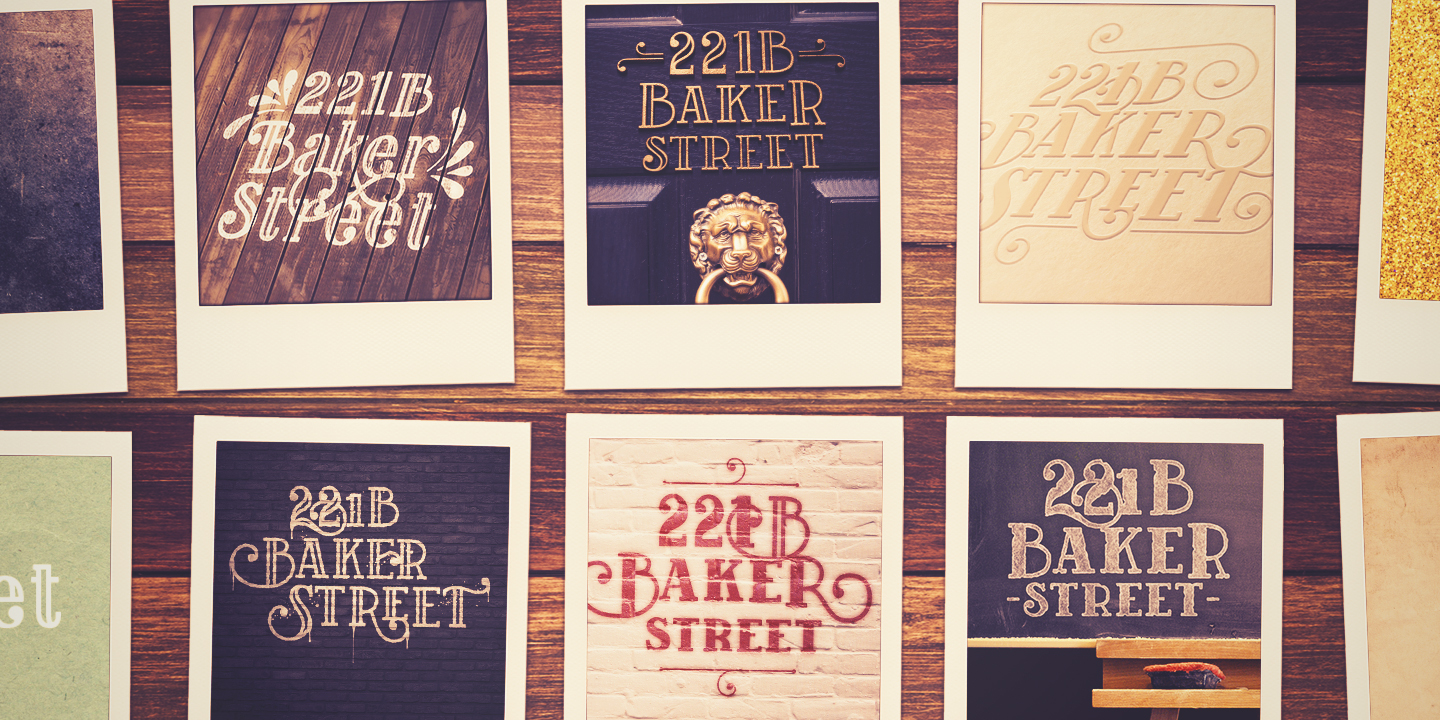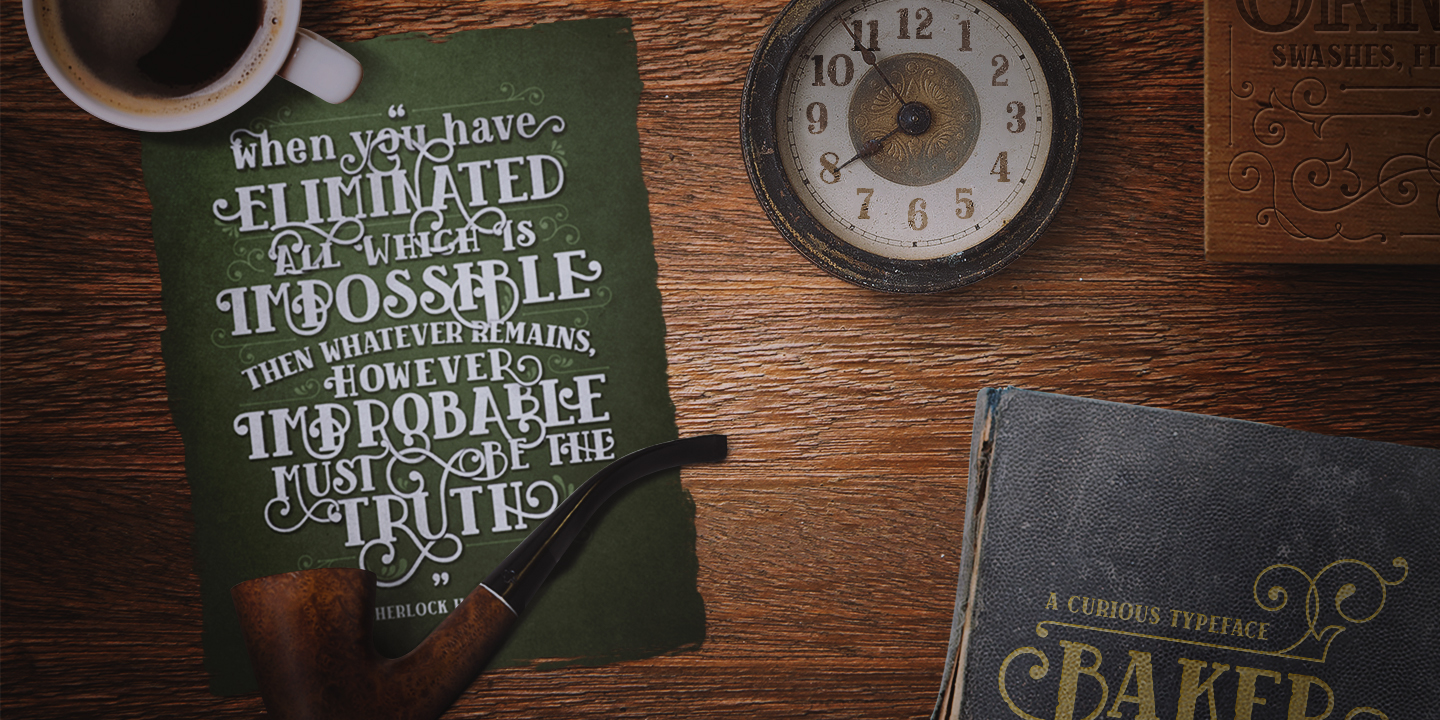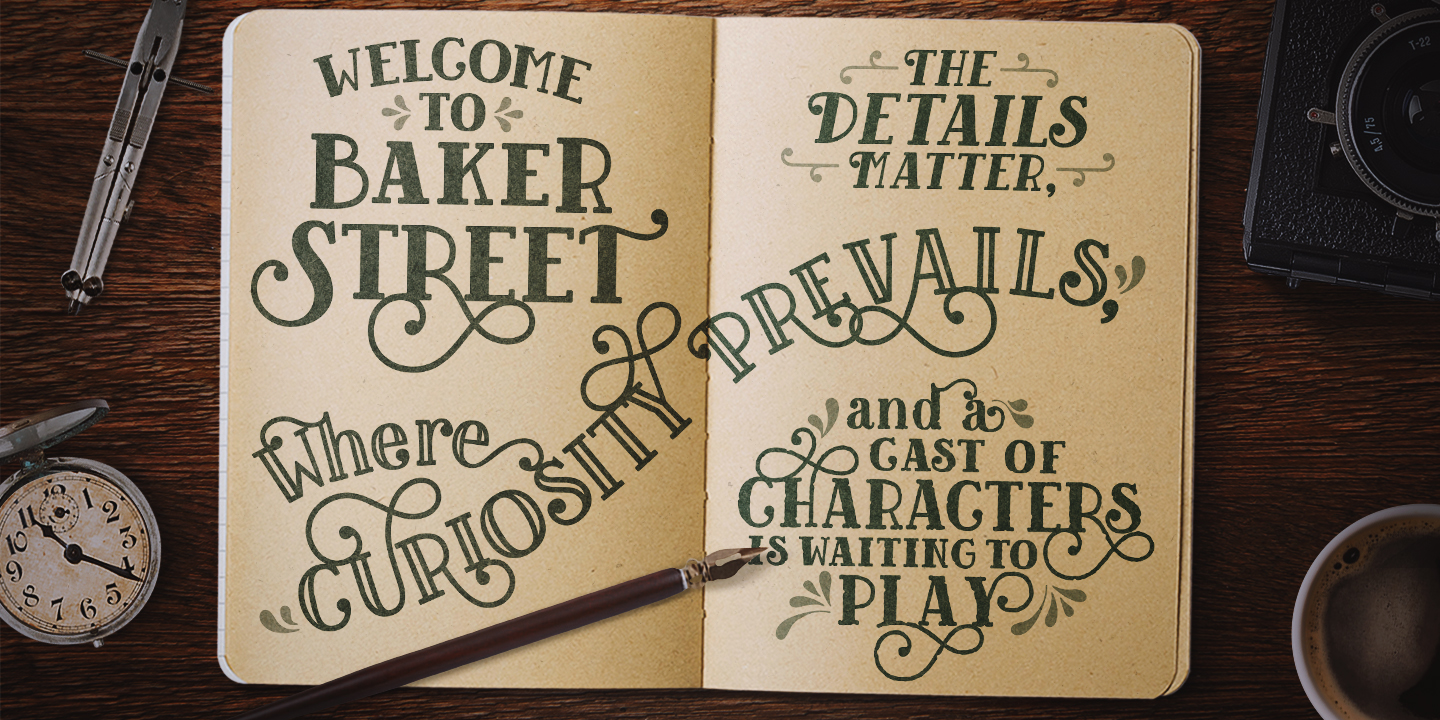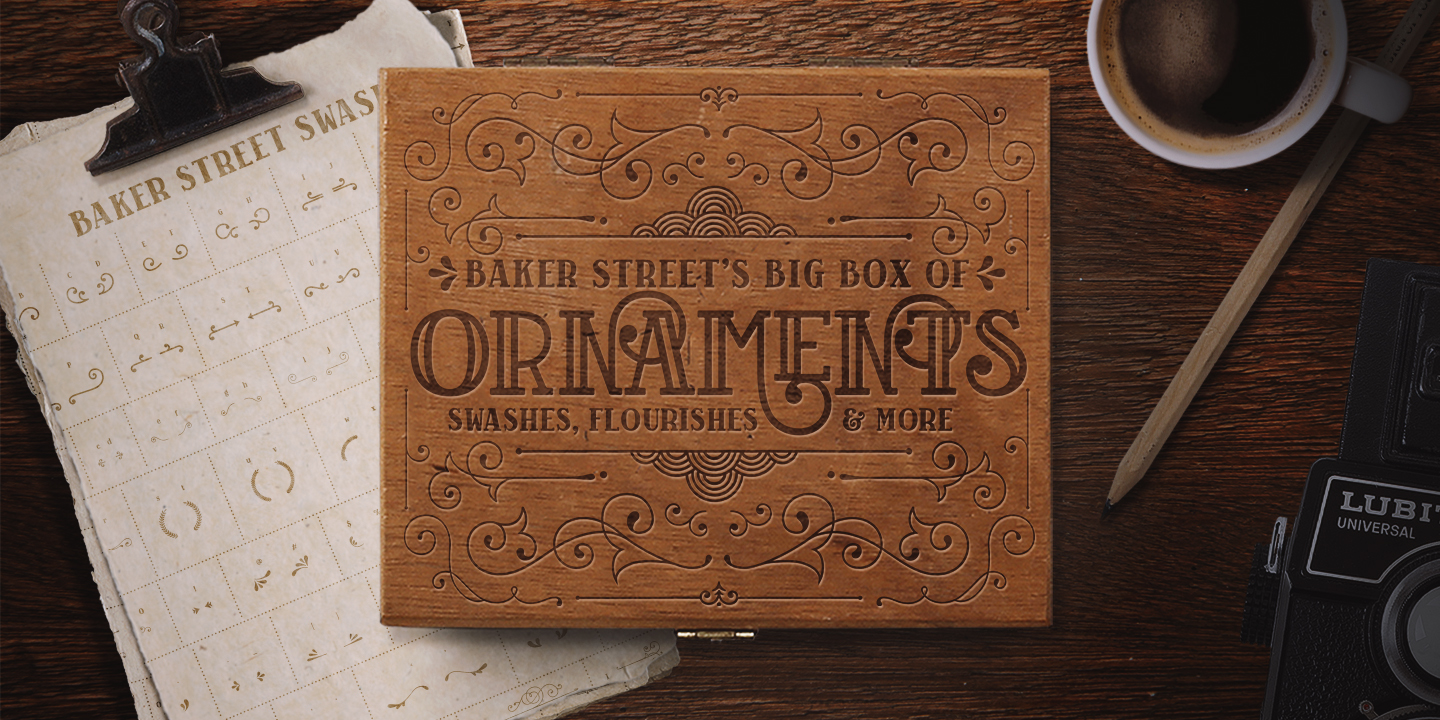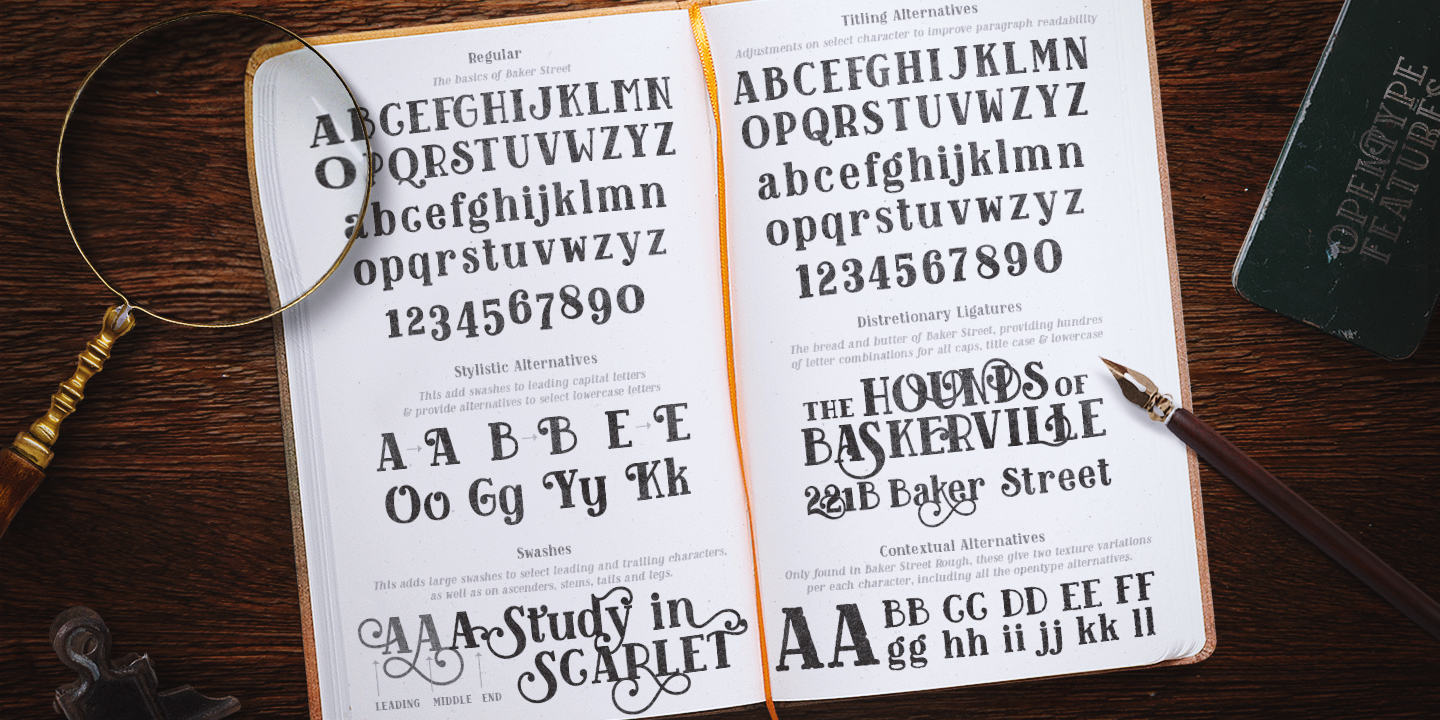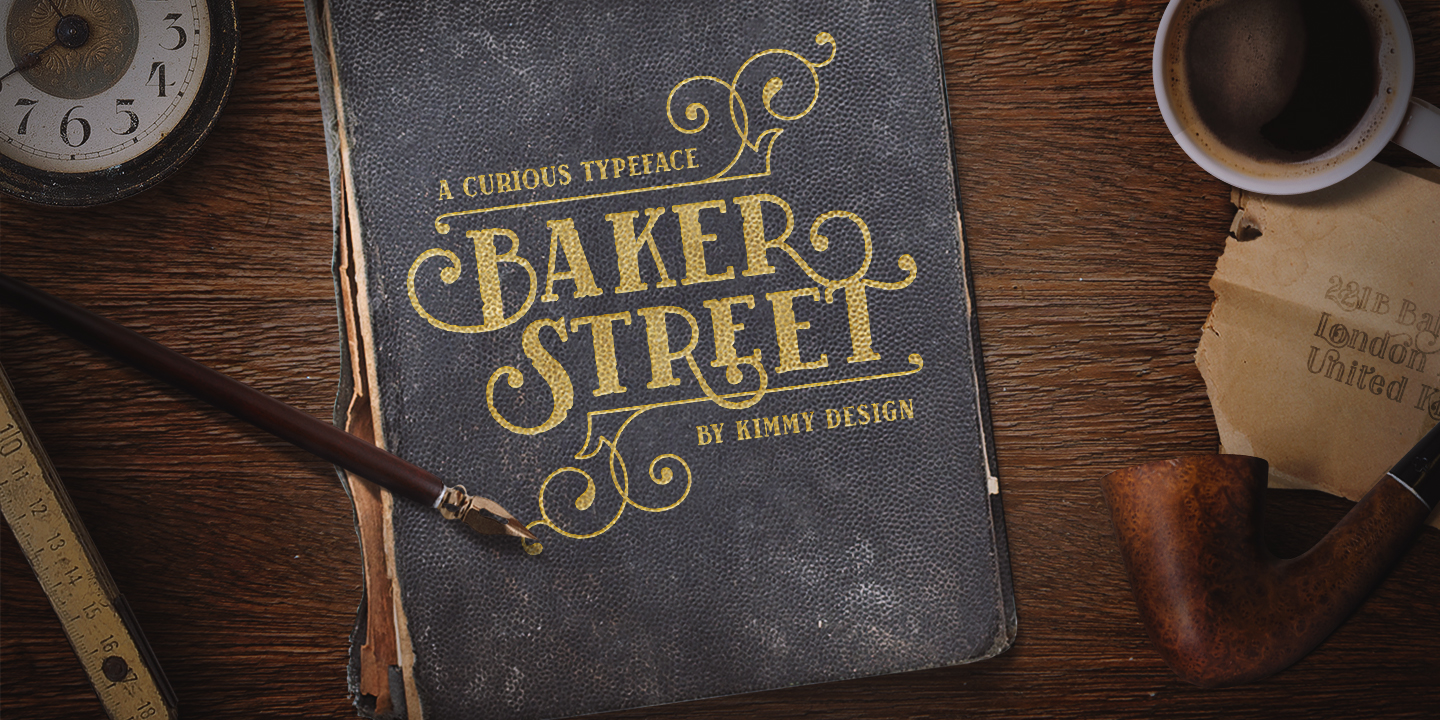
Baker Street delivers a multitude of Opentype features, primarily including hundreds of discretionary ligatures that connect letter pairs through varying flourishes. These distinct ligatures are used in combinations between two capital letters, two lowercase letters, uppercase to lowercase pairs and specific number combinations. For select capital and lowercase letters, large swashes expand above and below the characters. Contextual swashes are also applied to some characters when placed at the beginning or end of a word. Stylistic Alternatives and Titling Alternatives offer distinct style variations to capital letters. Tabular Lining and Oldstyle Figures provide several numerical alternatives.
Lastly, the family also includes two sets of ornaments created specially to work with Baker Street’s style.